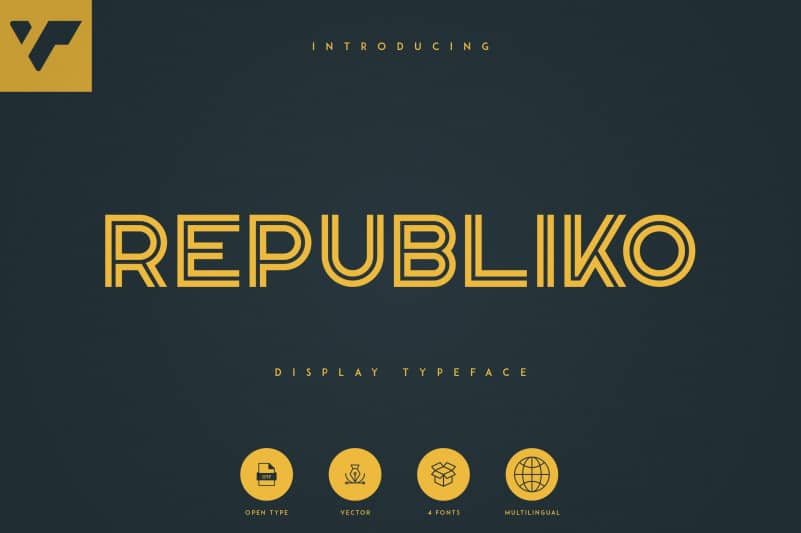
Republiko Display Typeface – 4 Styles
Thanks for checking out Republiko Font is a strong and elegant typeface display. Inspired by the style of design that is currently popular, and this is the answer to all the needs of every idea that you will pour in this modern era, with a thick and solid style in each letter as if this font has a soul in it.
Republiko is perfect for branding projects, home-ware designs, product packaging, magazine headers – or simply as a stylish text overlay to any background image. This font is free for PERSONAL USE.